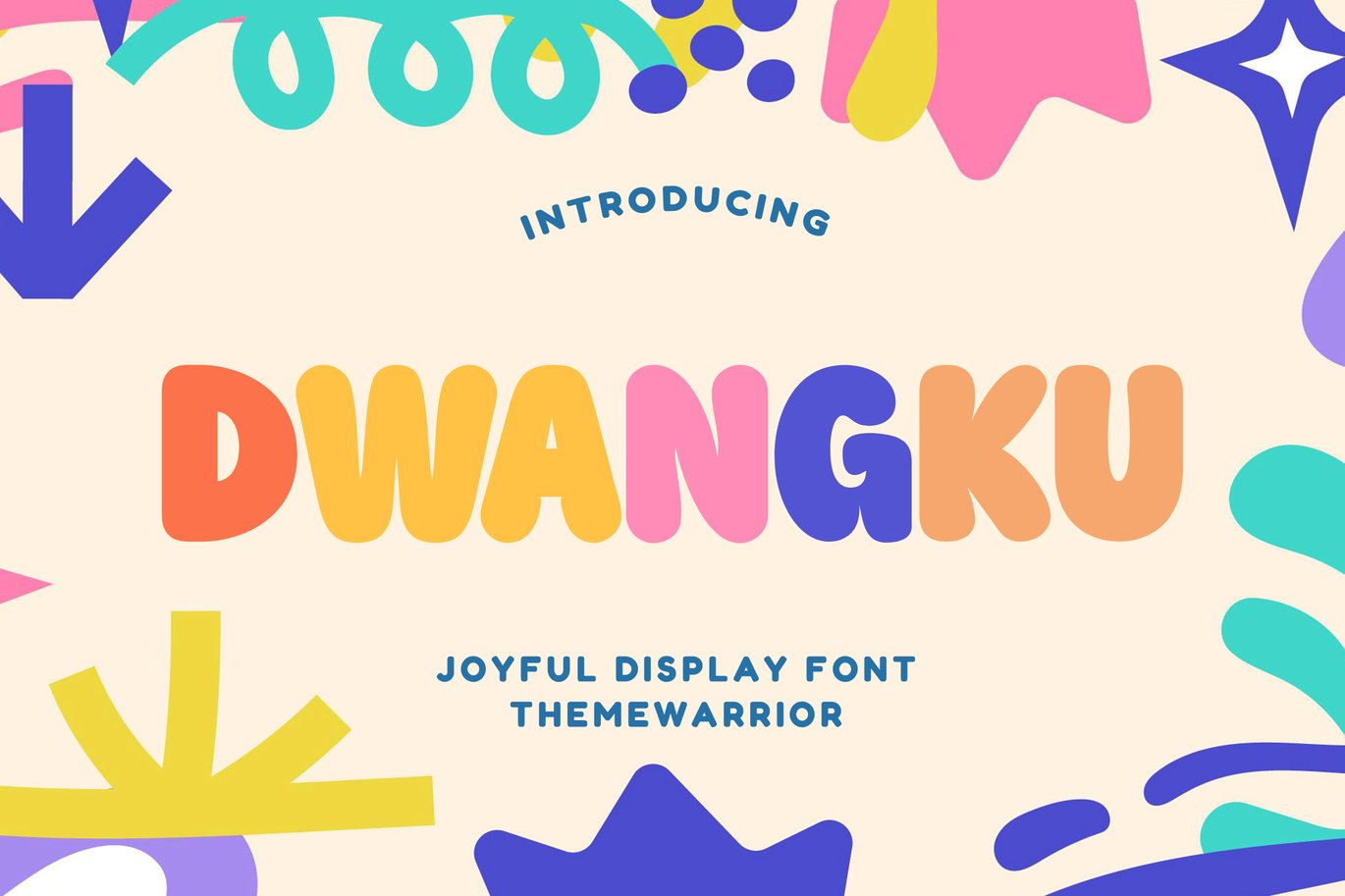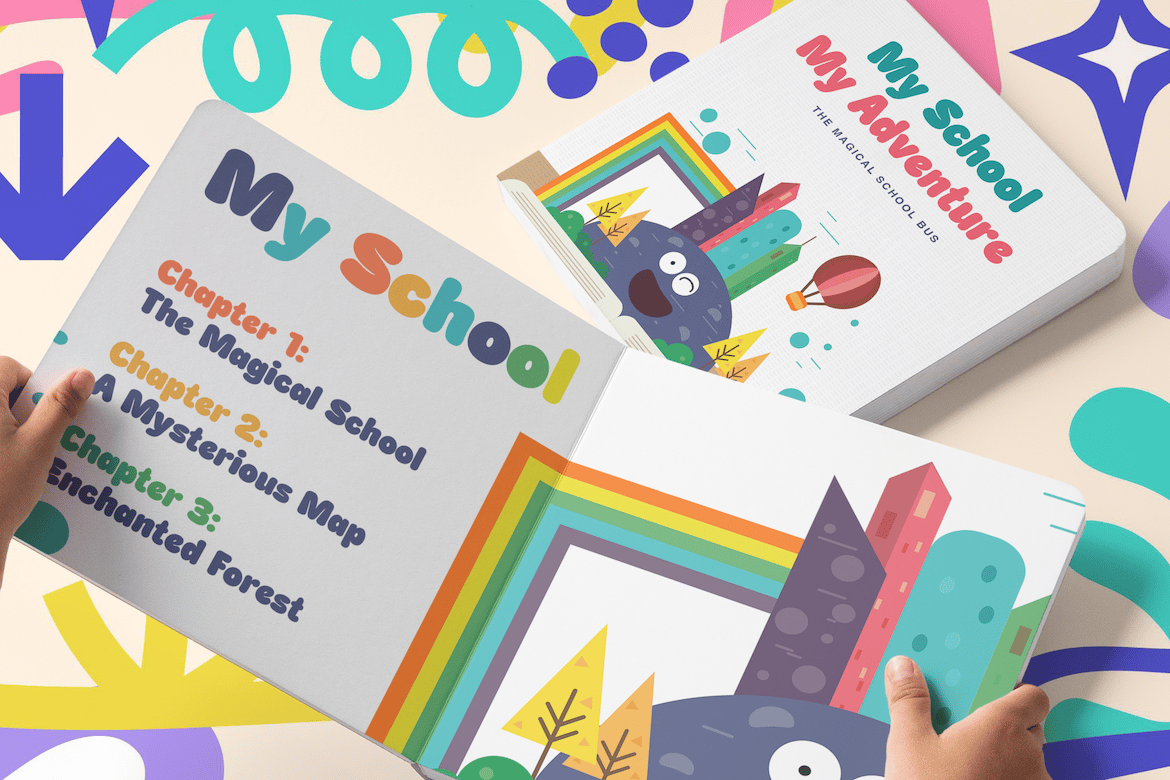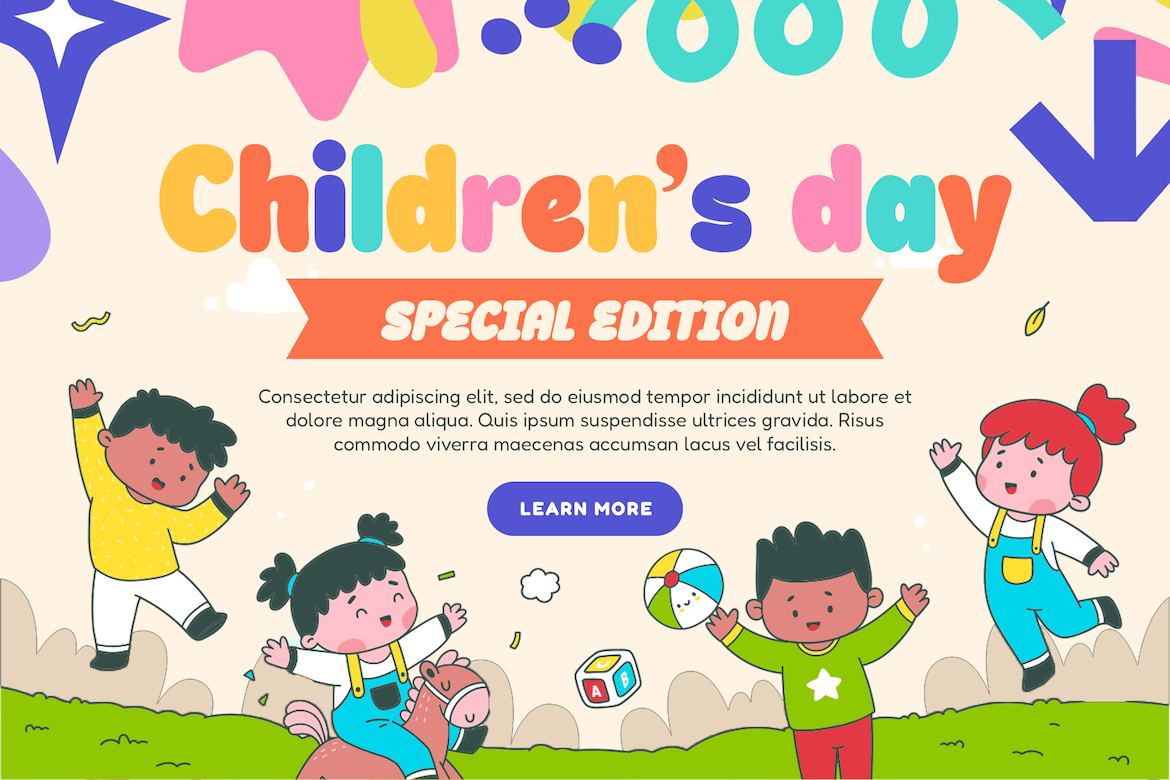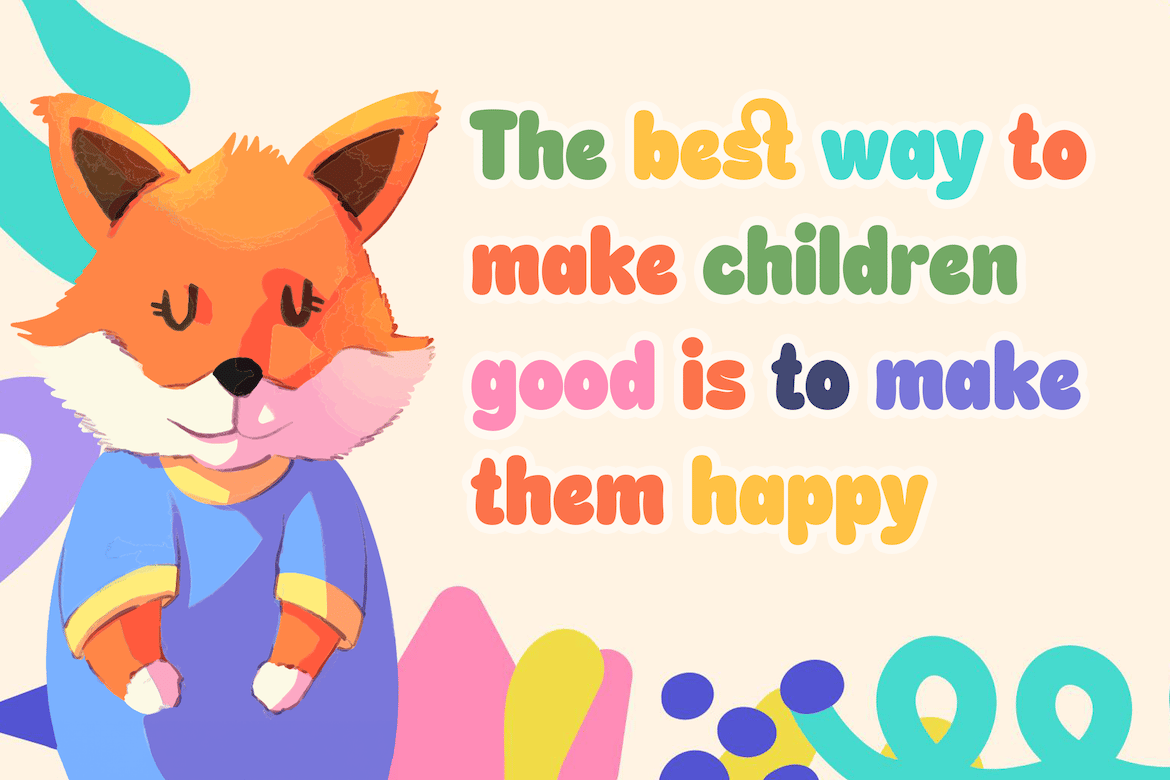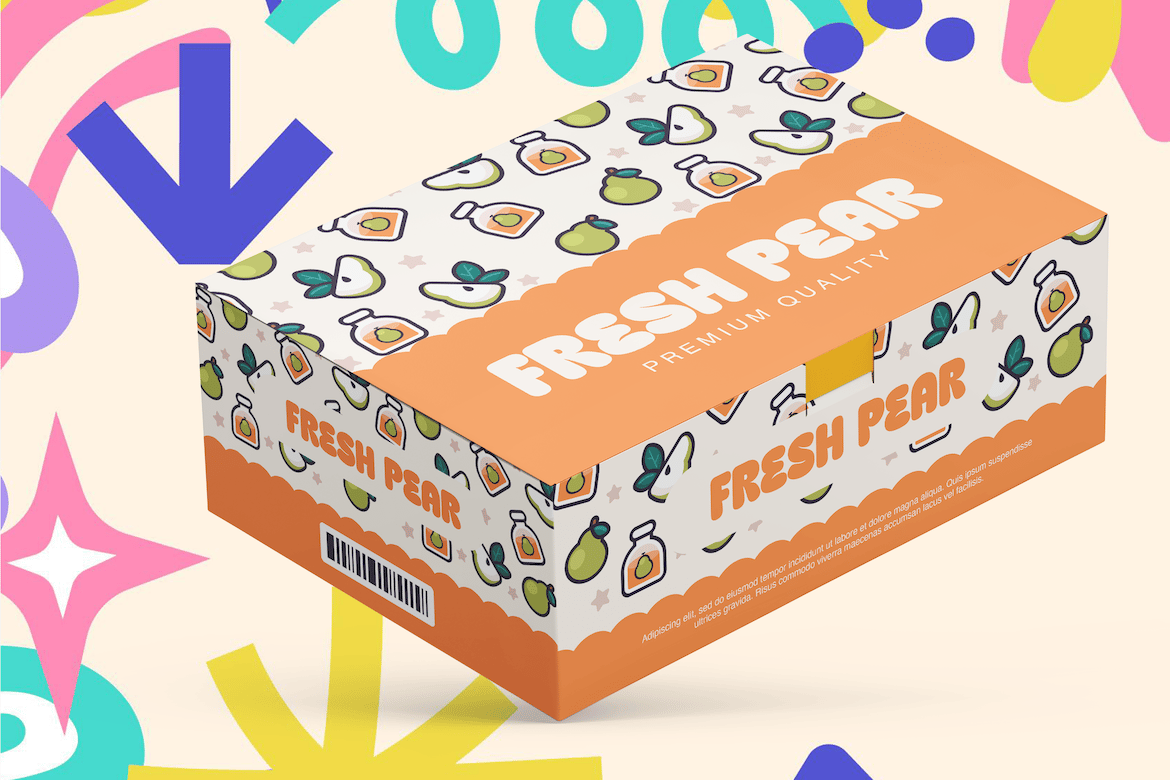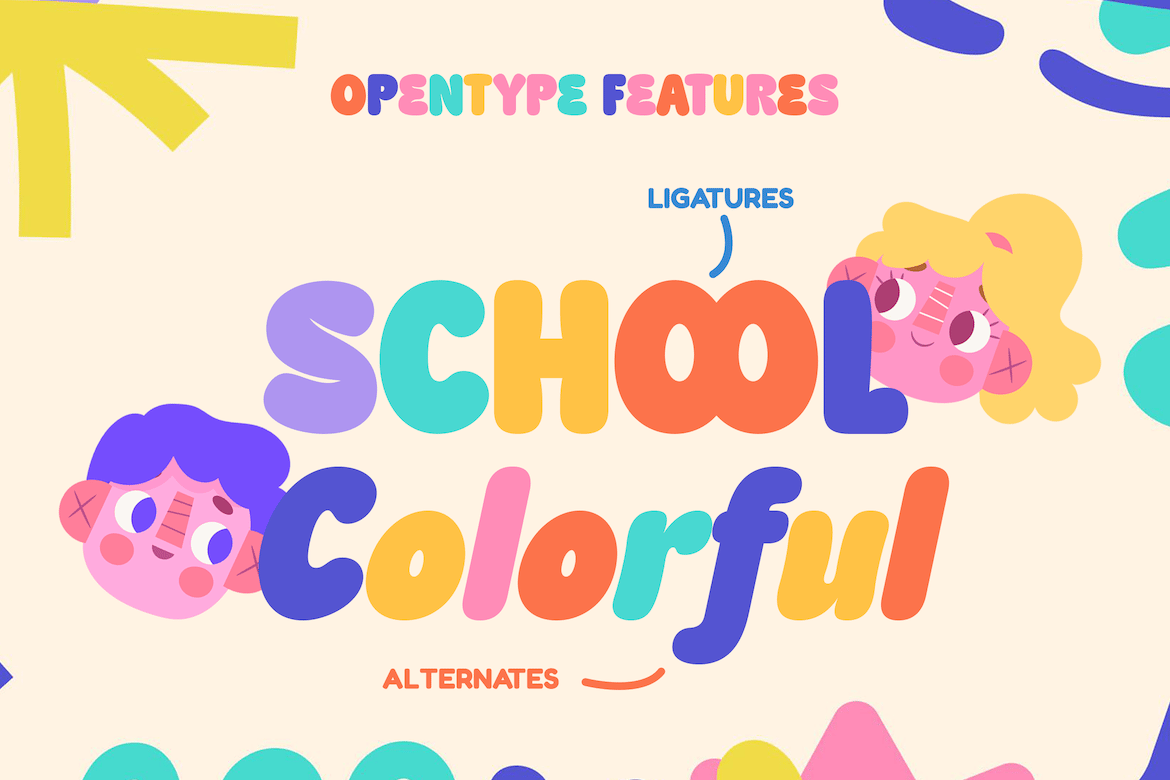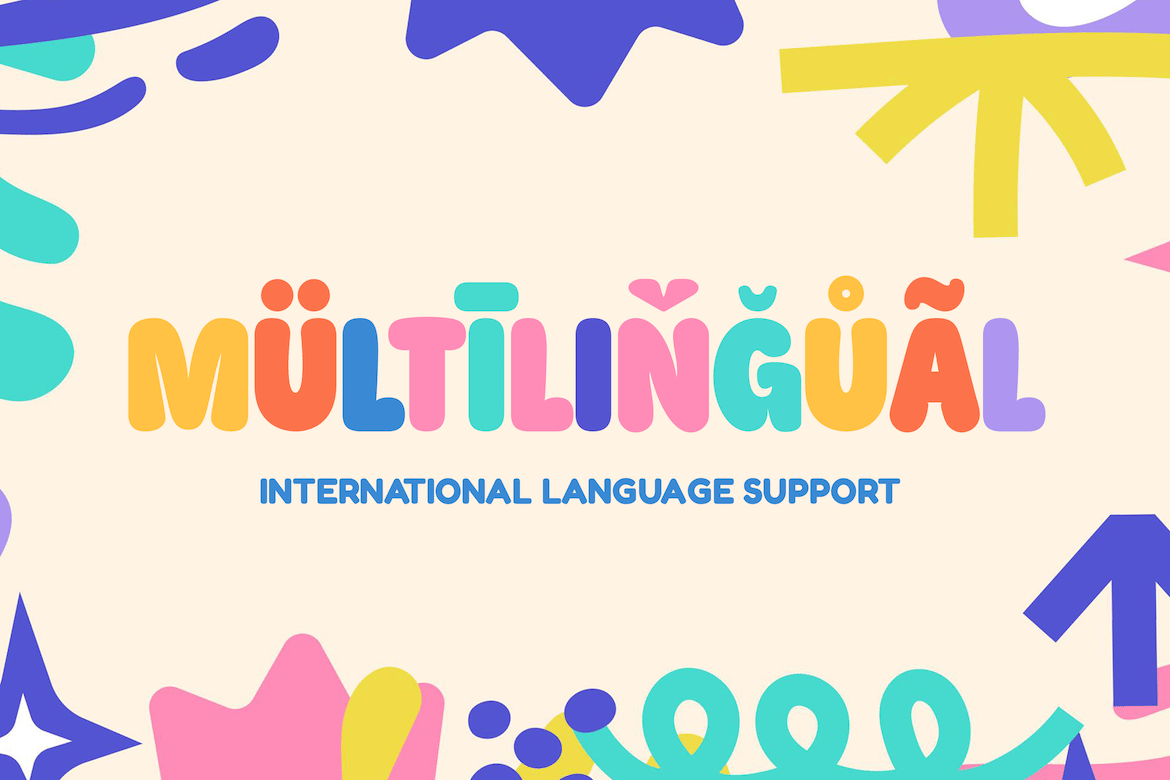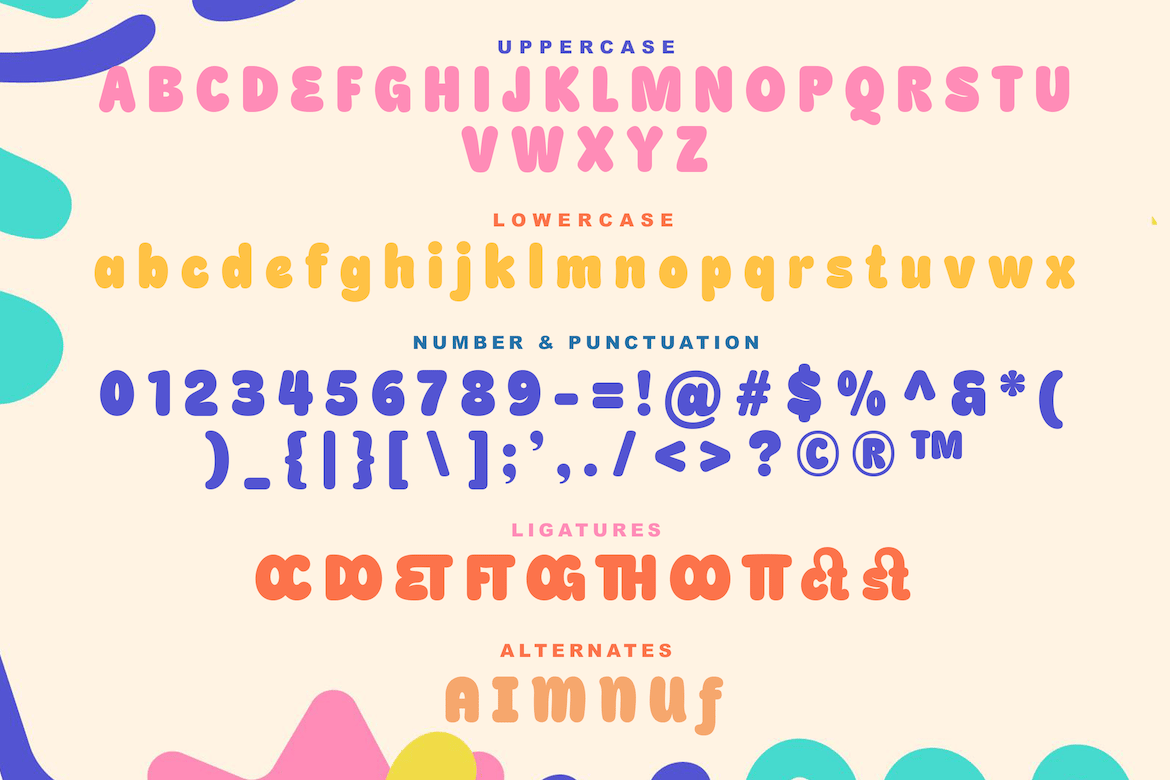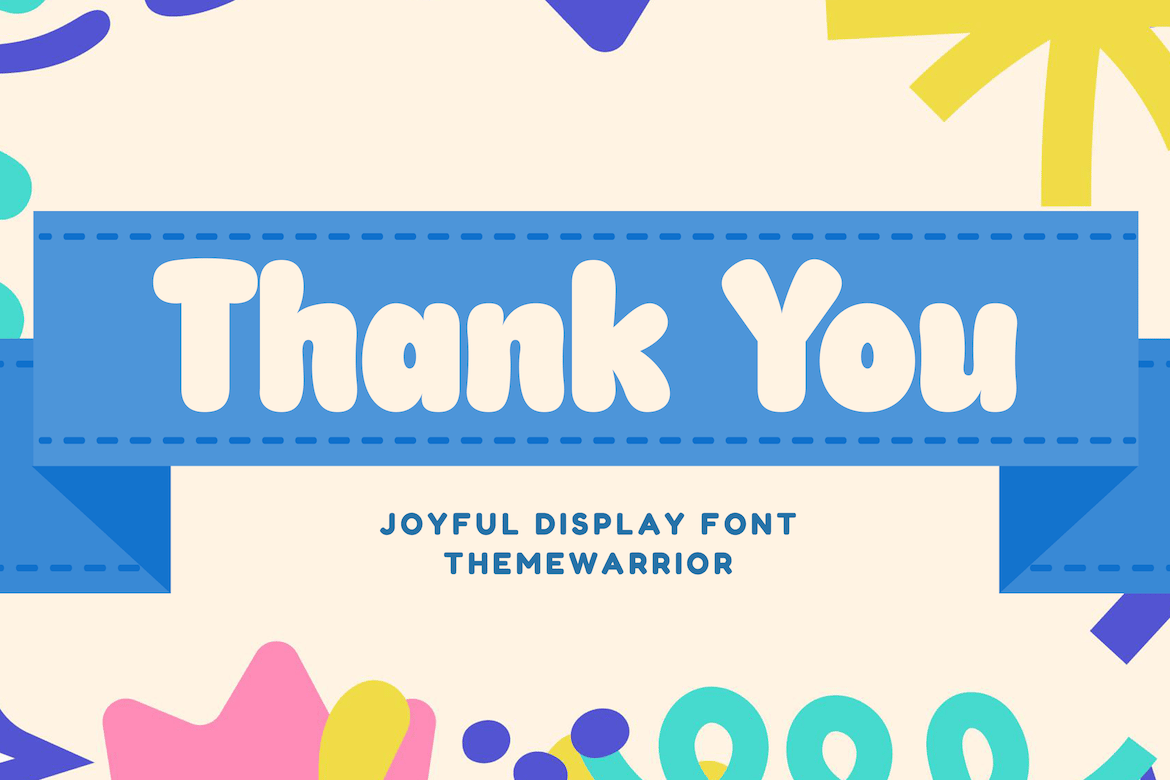
Dwangku – Joyful Display Font
Dwangku font brings a delightful and friendly vibe to any project. Whether you’re working on children’s books, party invitations, or playful poster. Dwangu font is designed to captivate young audiences and inject a sense of fun into your creations.
- Uppercase & lowercase
- Regular & Italic fonts
- Punctuations